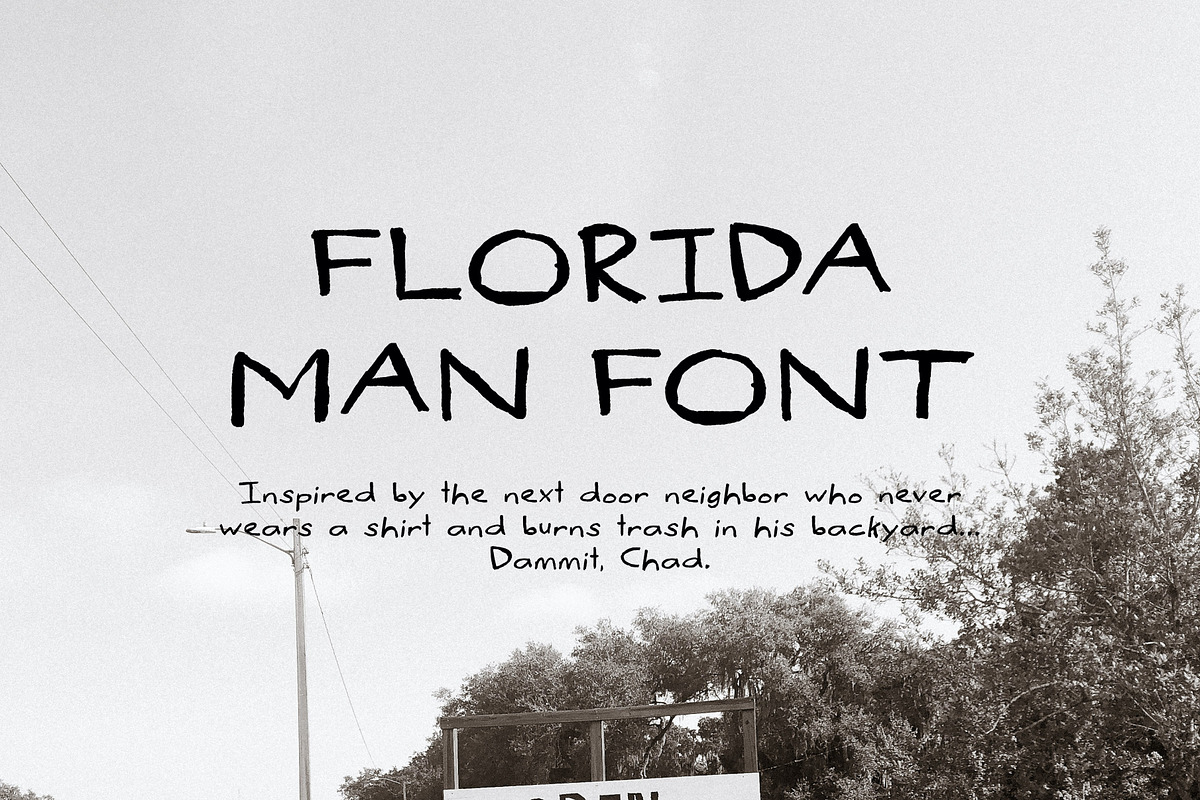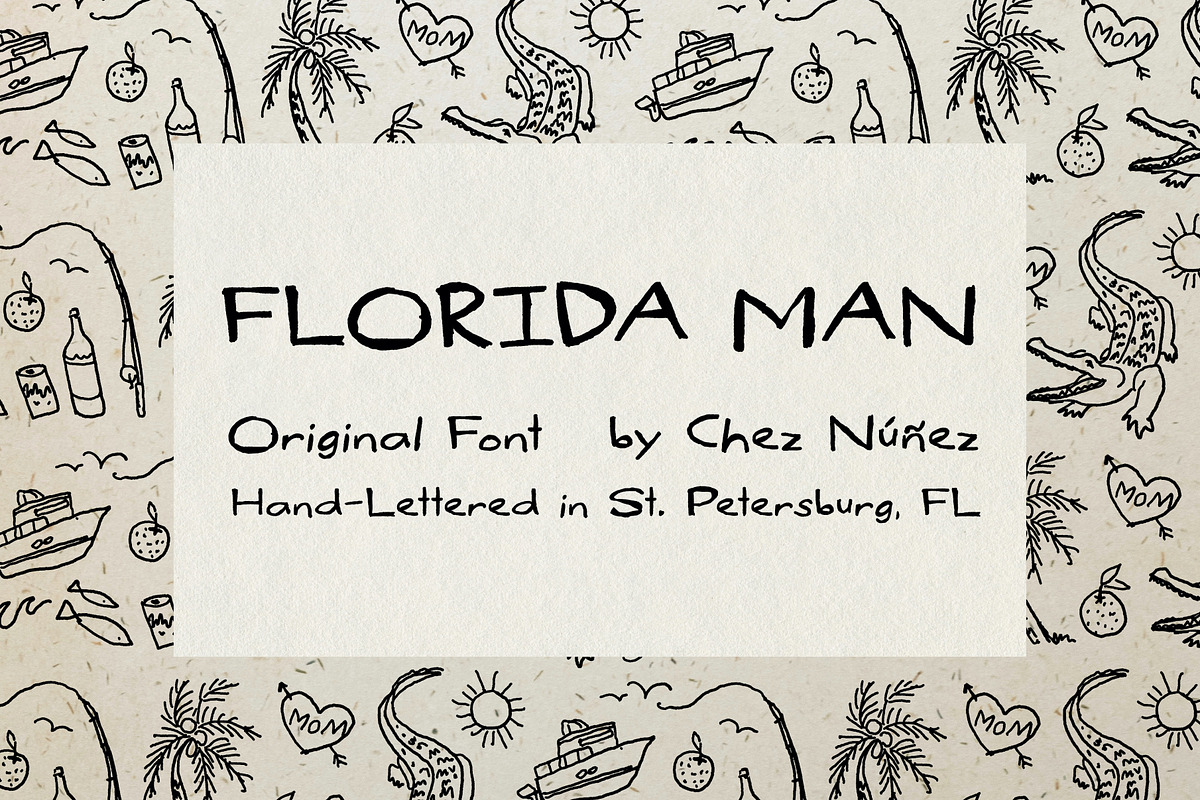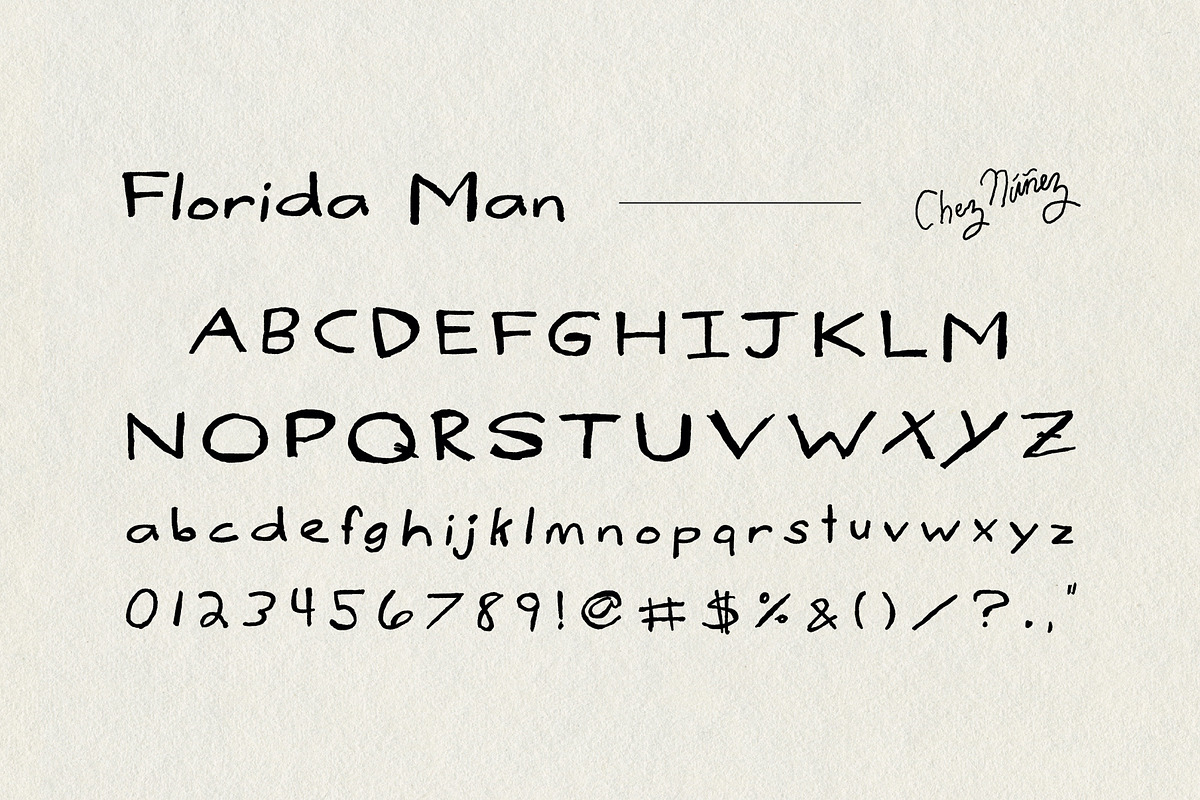
FLORIDA MAN: Sketchy Yard Sale Signs
A display typeface inspired by the next-door neighbor who never wears a shirt and burns trash in his backyard… Dammit, Chad.
- Standard Latin Characters + Numericals - lettered by hand, by Anna Núñez
- Punctuation, Mathematical Symbols, and Spanish accent marks - lettered by hand, by Jesús Núñez
Here’s a list of ideas for how you can use this typeface:
- Personal Stationery Collateral like Business Cards, Letterhead, Post Cards, Trifolds
- Personal Promotion Usage: Garage Sale Flyers, Local Theater, Local Band Posters
- Packaging + Merch Design
- Independent Artist Usage/ Independent Musicians
- Marketing and Promotional Materials
- Brand Typeface
- Logo Design